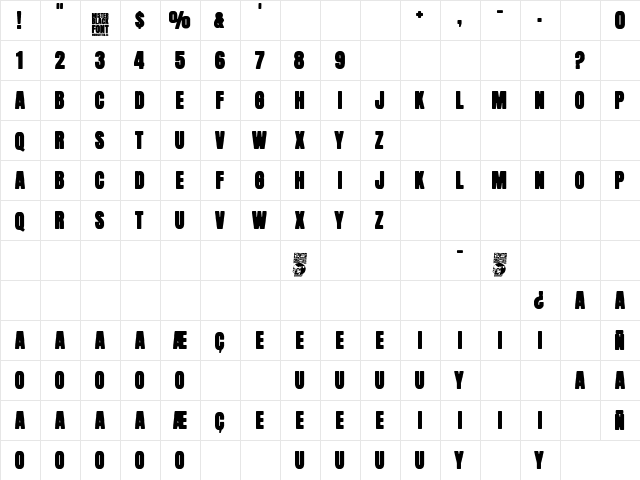
Mister Black Regular
Design Context for Mister Black Typeface
Mister Black offers clean, dependable letterforms without strong stylistic allegiance, making it a practical choice for designers who need flexibility.
Pro Tip: Use Mister Black in both headline and body roles to test its range before committing to a single application.